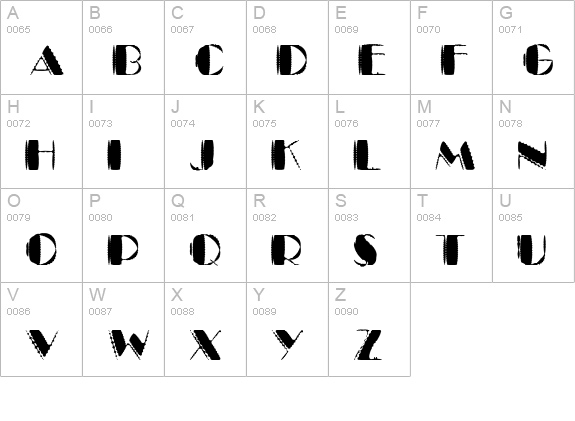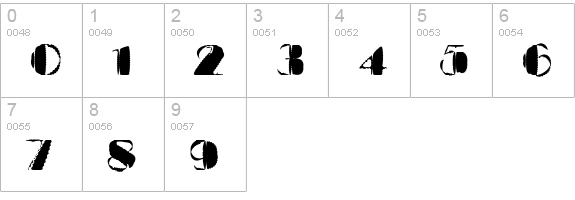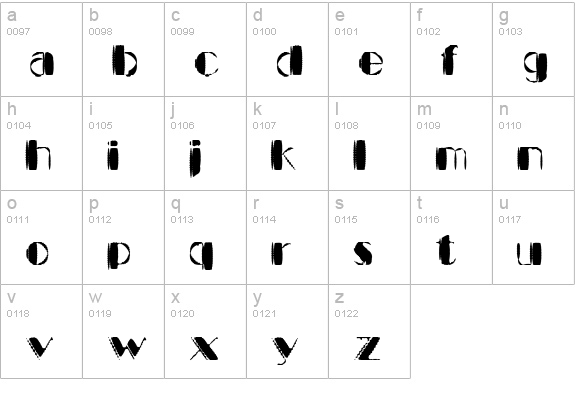
Kaptin Tribble Wound Font Details
Kaptin Tribble Wound font is a truly unique and captivating typeface that is sure to make a statement in any design project. With its intricate and beautifully crafted letterforms, this font is perfect for adding a touch of elegance and sophistication to your work. What sets Kaptin Tribble Wound font apart is its distinctive wounded appearance. Each letter is meticulously designed to look like it has been intricately etched or carved, giving it a one-of-a-kind texture that adds depth and character to your designs. Whether you are working on a logo, branding materials, or even a poster, Kaptin Tribble Wound font will instantly grab attention and leave a lasting impression. Its bold and assertive presence demands to be noticed, making it ideal for headlines and titles that need to stand out. What's even better is that Kaptin Tribble Wound font is available for free! Yes, you read that right. This exceptional font can be freely downloaded from FontsMarket.com, allowing you to bring a touch of creativity to your designs without breaking the bank. With its seamless legibility and versatile nature, Kaptin Tribble Wound font can be used in a variety of design projects, from print to digital. Its timeless aesthetic ensures that it will remain relevant and impactful for years to come. So why wait? Download Kaptin Tribble Wound font today and unleash your creativity with this stunning and freely available typeface. Transform your designs into works of art that leave a lasting impression on your audience.